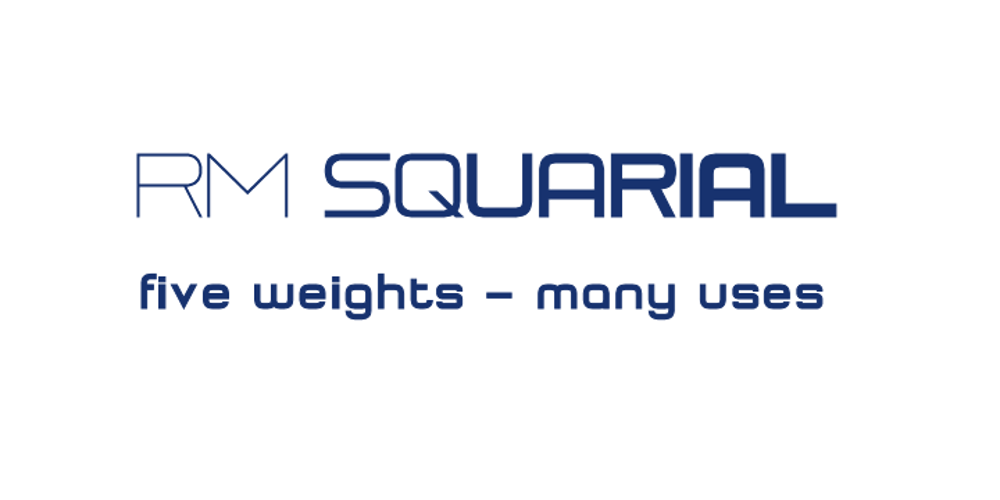
RM Squarial
RM Squarial font
RM Squarial Font Family was designed by Ray Meadows and published by Ray Meadows. RM Squarial contains 5 styles and family package options. Based loosely on a square, this hair line design works best at 24pt and above. Due to the modular nature of this design there may be a slight lack of smoothness to the curves at very large point sizes (around 100 pt and above).